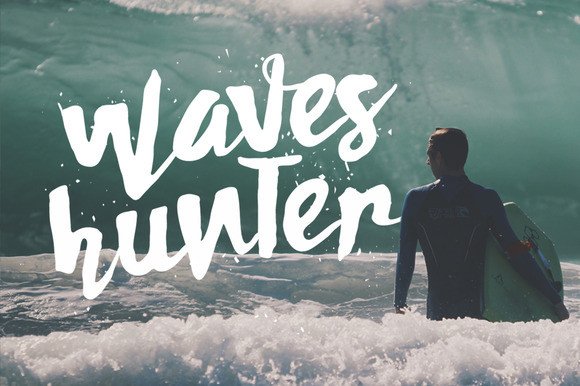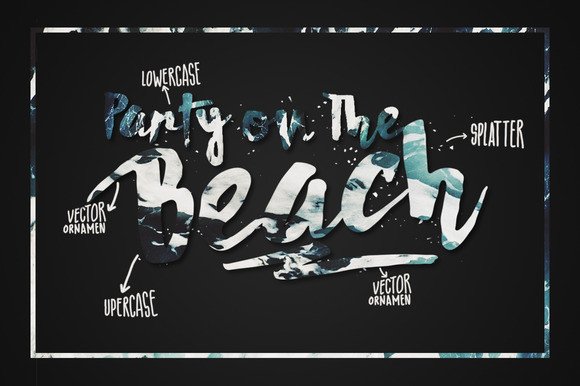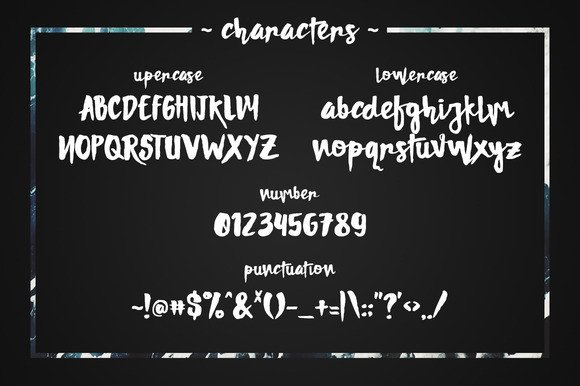
Introduction to Damn Right Font
As a designer, you’ve probably experienced that moment when you’re working on a project and everything just feels off – the colors aren’t popping, the typography is bland, and your entire design is screaming for a little bit of personality. That’s when I discovered the Damn Right Font, and it completely changed the game for me.
| 👤 Author | Giemons |
This high-quality, free download font is a game-changer for designers who want to add some sass and texture to their designs. With its fun and playful brush script style, the Damn Right Font is perfect for giving your creative projects a unique touch that will set them apart from the rest. Whether you’re working on a logo, social media graphics, or a marketing campaign, this design resource is sure to elevate your work to the next level.
One of the things I love about the Damn Right Font is that it’s incredibly versatile – you can use it on a transparent background or pair it with bold colors to create a statement look. And the best part? It’s completely free, making it an invaluable resource for designers of all levels.
Key Features of Damn Right Font
- High-quality design with a unique, bold style perfect for creative projects
- Designed to be highly legible, even at smaller font sizes, making it perfect for titles, headings, and body text
- Unique characteristics include a strong, confident feel and a range of stylistic alternates for added versatility
Honest Review: Damn Right Font
I recently had the chance to work with the Damn Right Font and I’m excited to share my honest review. As a designer, I’m always on the lookout for high-quality design resources to elevate my creative projects.
One of the things that stood out to me about Damn Right Font is its unique and bold style. It’s perfect for adding a touch of personality to any design project. The font is available for free download, which is a huge plus for designers who are working on a budget.
- High-quality design: The font is well-designed and looks great on both desktop and mobile devices.
- Transparent background: This makes it easy to use the font over a variety of different backgrounds.
- Limited character set: The font doesn’t include a full character set, which can make it difficult to use in certain situations.
- No bold or italic styles: While the font is bold and eye-catching, it would be great to have some additional weight options.
Overall, I’m impressed with the Damn Right Font. It’s a great addition to any designer’s toolkit and can add a lot of personality to a creative project. However, it’s not perfect and has some limitations that should be considered.
The Damn Right Font is ideal for use in a variety of design projects, including logos, brochures, and marketing materials. Its unique style and transparent background make it a versatile design resource that can be used in a range of creative applications.